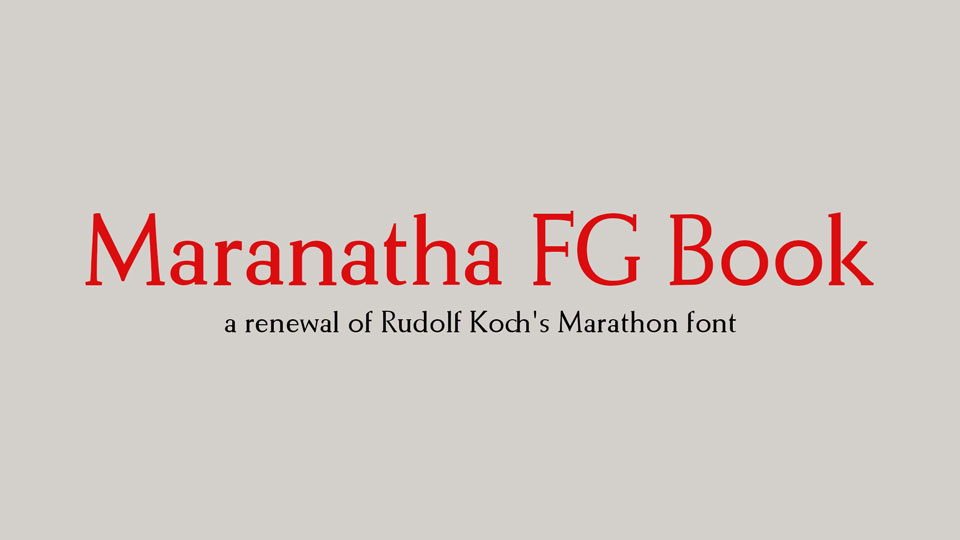
Download Maranatha FG font, a renewal of Rudolf Koch’s Marathon typeface. This font tries to emulate the size that was used in the 1951-1993 Protestant German hymn book.
Designer: Fontgrube AH